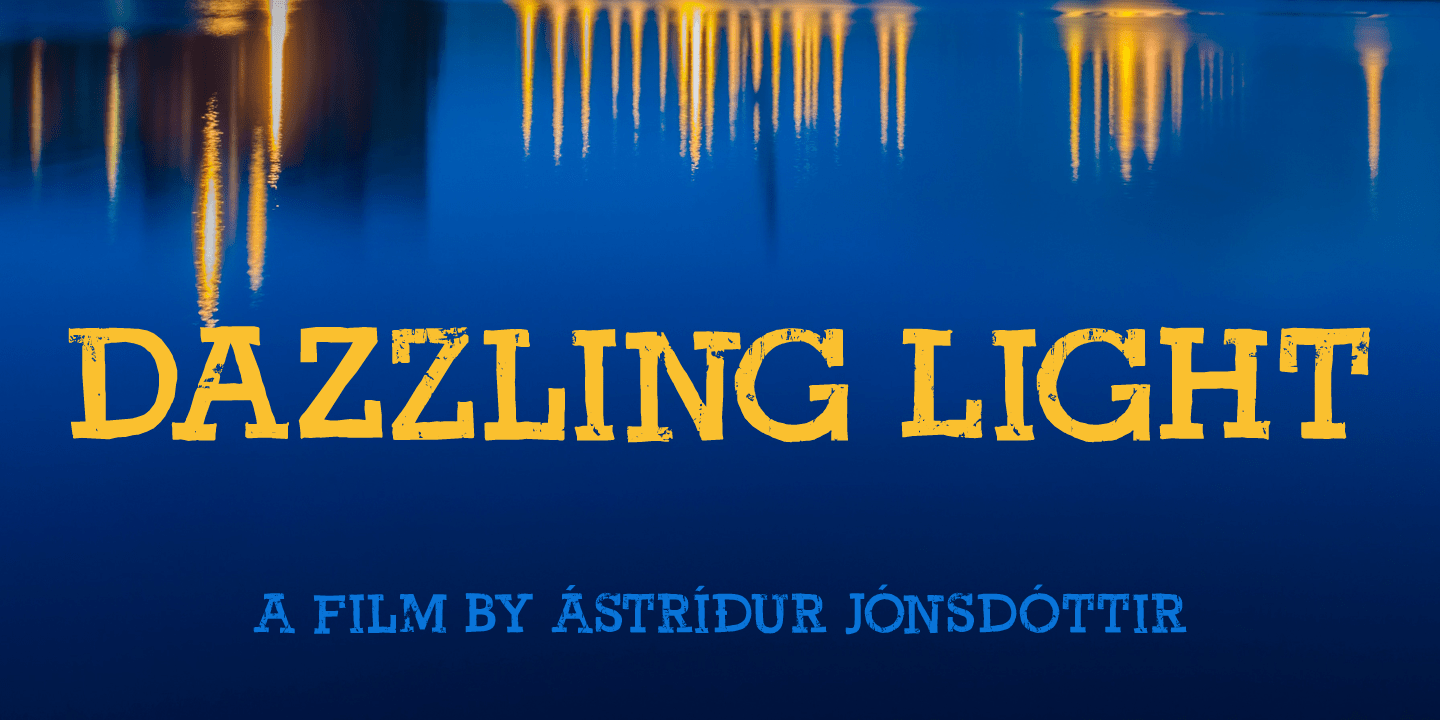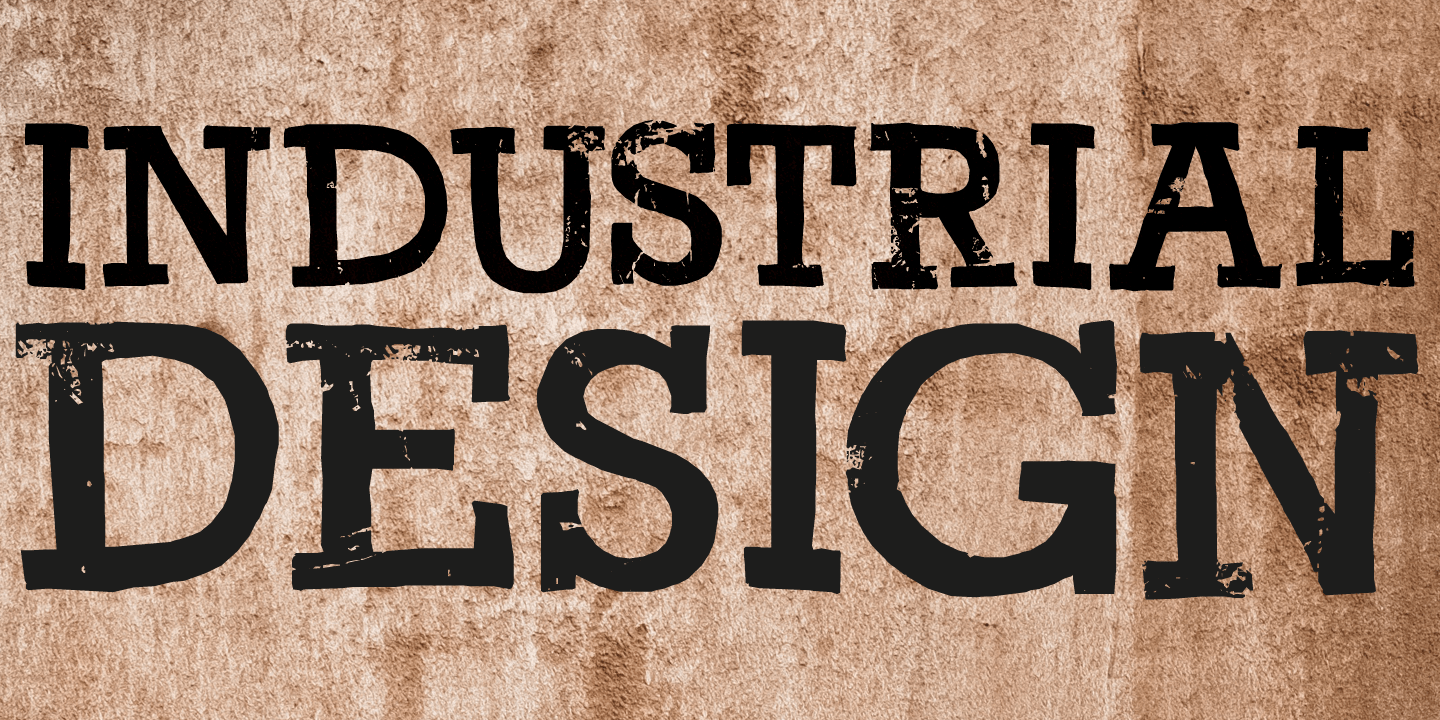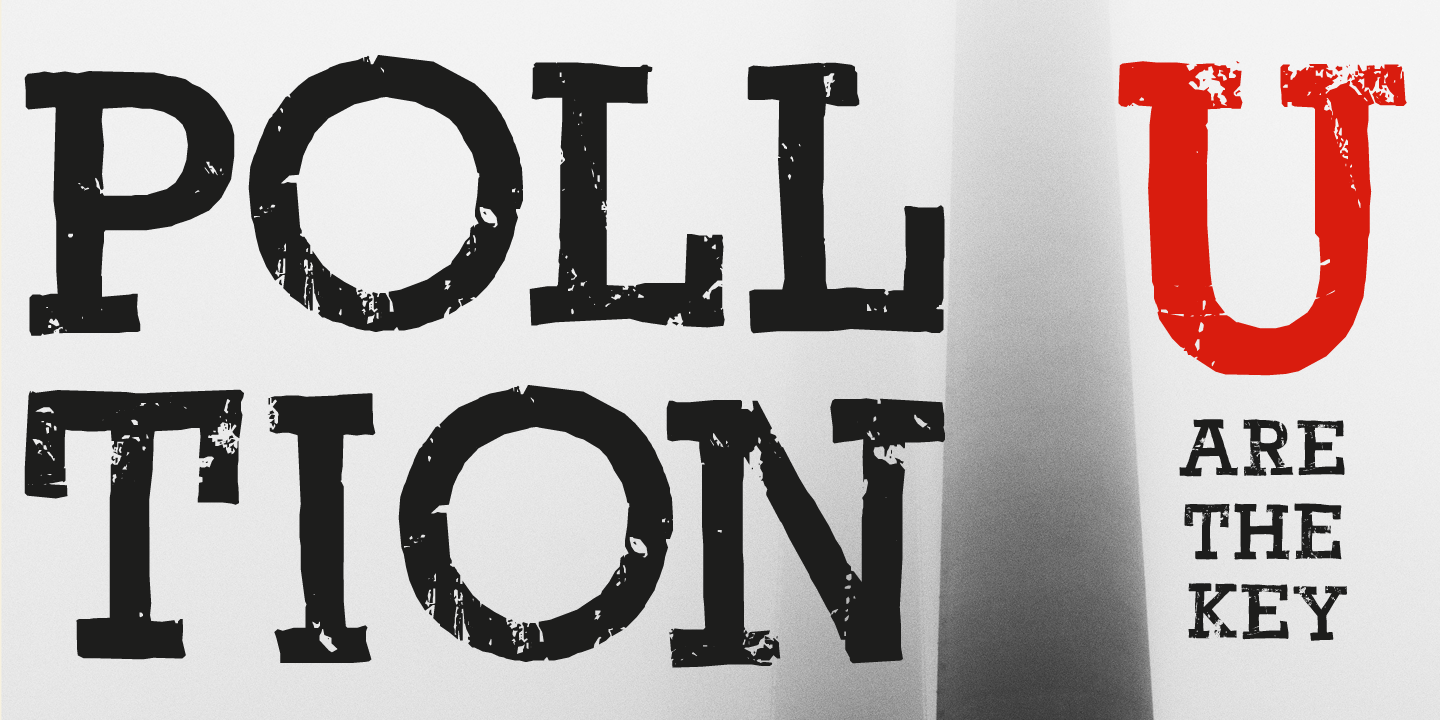
I bought something online, but when I received it, it wasn\’t exactly what I had hoped it would be. So I read the return policy and sent it back. And? came up with this font and its name in the process! Return Policy is a hand drawn slab serif, inspired…